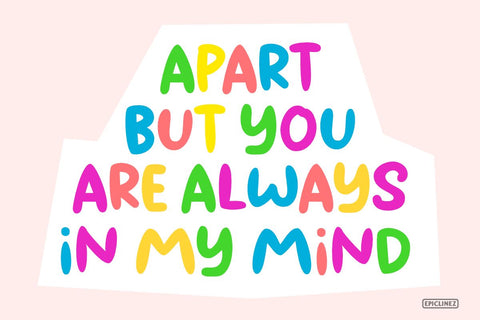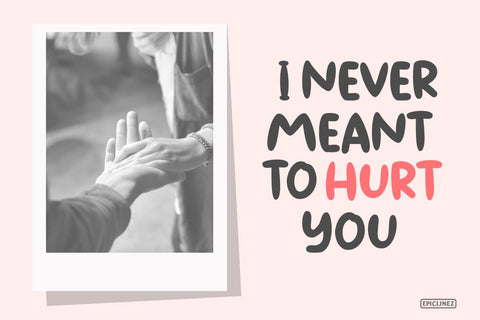
Unbroken | A Bold and Smooth Handwritten Font
Unbroken is a bold handwritten font, carefully handcrafted to become a true favorite. It features a timeless look and feels and it is perfect for logos, stationery, crafting projects, and much more!